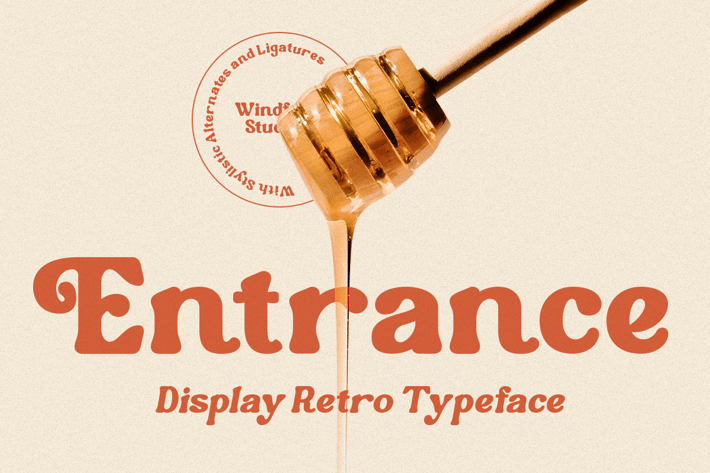
Entrance - Display Retro Rounded Font
Entrance - Retro Rounded
Entrance is a retro rounded font that captures the essence of vintage typography with a modern twist.
Its rounded edges and playful curves evoke a sense of nostalgia while maintaining a contemporary appeal. Perfect for adding a retro touch to your designs, Krone brings a sense of warmth and charm to any project.
Entrance Features:
Alternates & Ligatures
Numerals & Punctuation
Accented characters